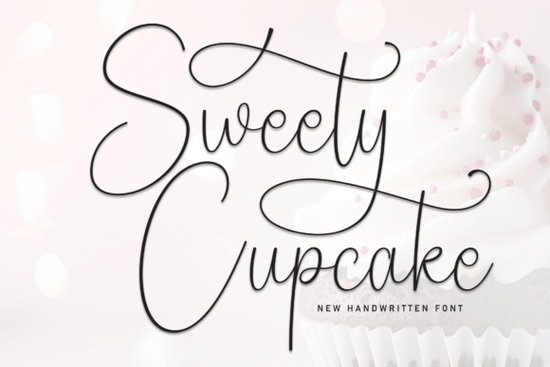
If you’ve been searching for a script font that feels both elegant and personal, the Sweety Cupcake Font might be exactly what your next project needs. It’s designed with soft, flowing strokes that mimic natural handwriting perfect for greeting cards, gift tags, or even small business branding where warmth and charm matter.
This isn’t one of those fonts that shouts for attention. Instead, it whispers sweetness ideal for birthday invites, baby showers, or holiday cards where you want the message to feel heartfelt, not flashy. The letterforms connect naturally, making phrases look handwritten without being messy. And because it includes alternates and ligatures (if your software supports them), you can tweak words to feel even more custom.
What kinds of projects work best with this font?
It shines in situations where personality matters more than polish. Think:
- Handmade greeting cards especially for birthdays, anniversaries, or “just because” notes.
- Print-on-demand products like mugs, tote bags, or journals with sweet quotes or names.
- Small bakery or dessert shop branding menu headers, packaging labels, social media graphics.
- Wedding stationery though if you’re going ultra-formal, you might also browse wedding dream font options for something more traditional.
- Kids’ party decor cupcake themes, obviously, but also candy bars, favor tags, or photo booth props.
One thing to note: while it’s legible at medium to large sizes, avoid using it for body text or tiny labels. Script fonts like this are meant to be savored not skimmed.
How does it compare to other playful scripts?
If you’ve used jolly christmas fonts in the past, you’ll notice Sweety Cupcake has a softer, less bouncy energy. It doesn’t lean into holiday kitsch it’s more versatile year-round. Compared to Penny Scribbles, which feels like quick doodles from a coffee shop napkin, Sweety Cupcake is more refined, like calligraphy done with care.
And if you’re pairing it with another font? Try a clean sans-serif for contrast. Something minimal keeps the focus on the script’s curves without competing. Avoid pairing it with other scripts unless you’re going for intentional chaos like mixing it with Sketchy Gossip for a fun, artsy collage effect.
Any tips for getting the most out of this font?
A few practical ideas:
- Use OpenType features. If your design app supports it (like Illustrator, InDesign, or Affinity), toggle on stylistic alternates to vary letter endings. It prevents repetitive loops in longer words.
- Add subtle texture. A faint paper grain or watercolor wash underneath your text can make it feel even more handmade.
- Don’t overdo the spacing. Let the natural flow do the work. Cranking up letter-spacing can break the connections and ruin the rhythm.
- Test print readability. What looks gorgeous on screen might blur when printed small. Always do a physical test if legibility matters.
Also worth mentioning: if you love this style but need something even more casual, check out other script fonts in the same family. Sometimes a slightly rougher or bolder version fits your project better.
Who’s buying this font and why?
Most users fall into three groups:
- Crafters making personalized gifts or party decor.
- Print-on-demand sellers designing quote-based products for Etsy or Shopify.
- Small creative businesses bakeries, florists, boutiques wanting to add a human touch to their branding.
It’s not the font for corporate reports or tech logos. But if your goal is to make someone smile, feel seen, or remember a special moment? Then yes this font delivers.
Before you download, ask yourself: Does my project need elegance with heart? If the answer’s yes, you’re probably in the right place.
Next step: Try before you buy
Most Creative Fabrica font pages include a live preview tool. Type in your own word maybe a name, a short phrase, or a product title and see how it flows. Does it feel right? Does it match the mood you’re going for? If so, grab it. If not, browse similar styles like Penny Scribbles or Sketchy Gossip until you find your fit.
Fonts are tools, not magic. But the right one like Sweety Cupcake can turn a simple message into something that feels like it was made just for the person holding it.